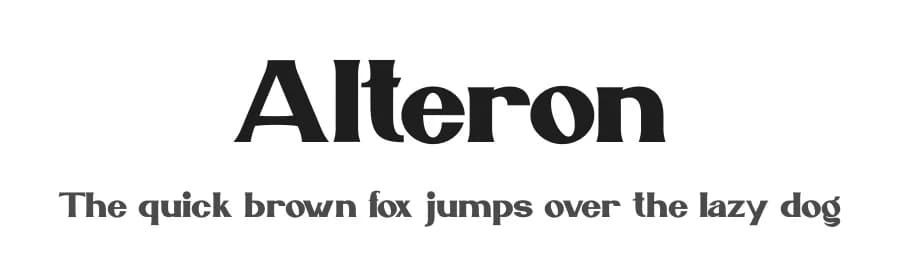
About Alteron Font
Alteron Specifications
Alteron Font is a versatile serif font that works for both headings and body text. Pair it with a contrasting sans-serif or slab serif font to add visual interest and a clear distinction between titles and body copy.
Alteron Font